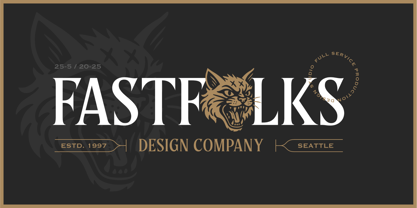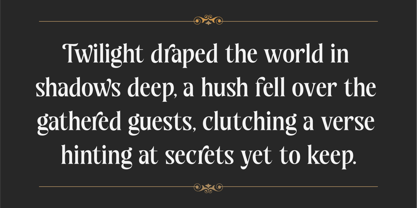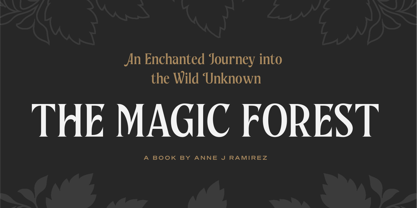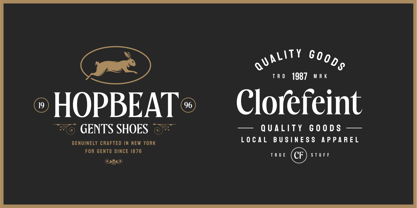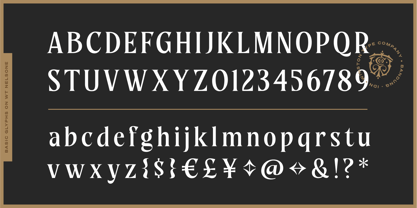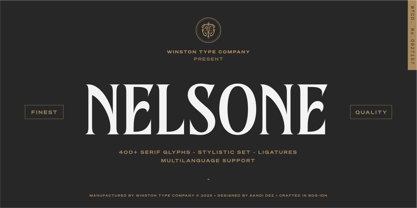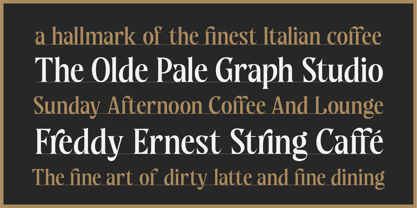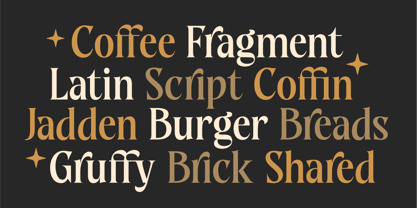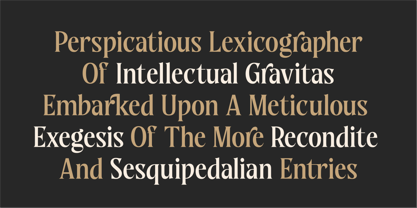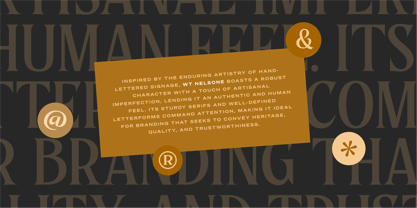
WT Nelsone
by Winston Type Co.
The WT Nelsone Font Family was designed by D.S. Sjahputra and published by Winston Type Co.. WT Nelsone contains 1 styles. More about this family
Inspired by the enduring artistry of hand-lettered signage, WT Nelsone boasts a robust character with a touch of artisanal imperfection, lending it an authentic and human feel. Its sturdy serifs and well-defined letterforms command attention, making it ideal for branding that seeks to convey heritage, quality, and trustworthiness.
WT Nelsone is designed with the demands of modern business in mind. Its clean lines and balanced proportions ensure excellent legibility across both print and digital platforms, making it a versatile choice for everything from logos and packaging to websites and editorial design.